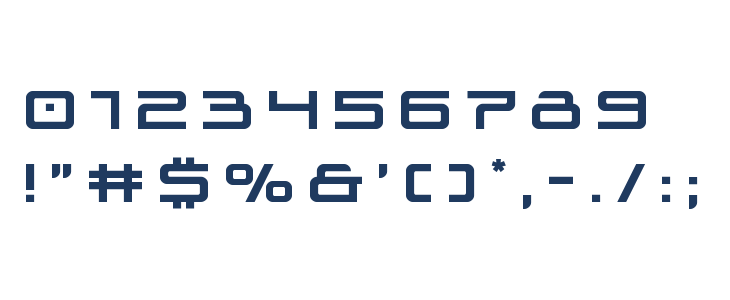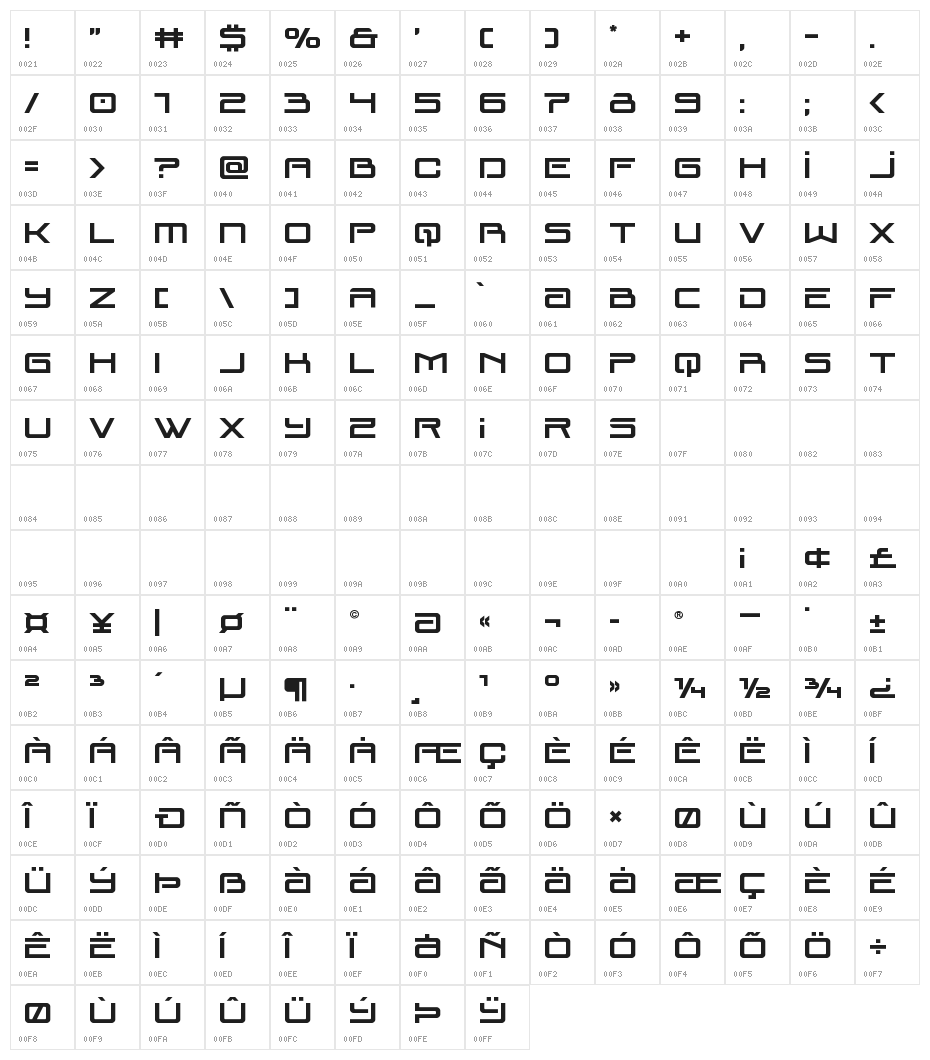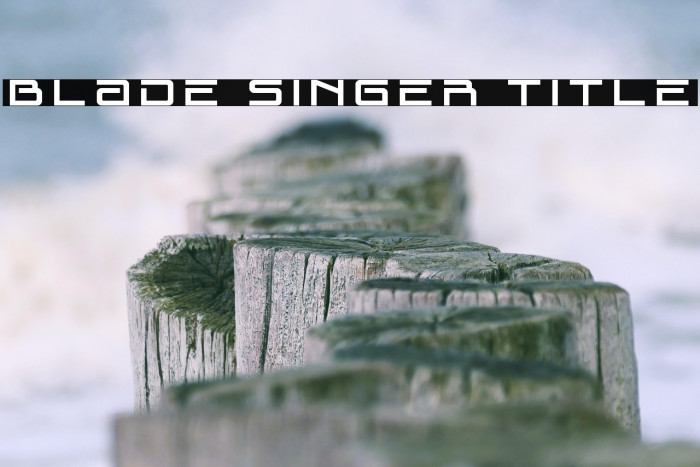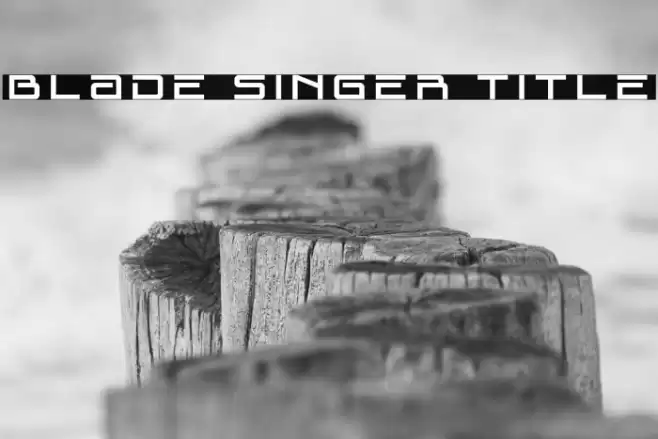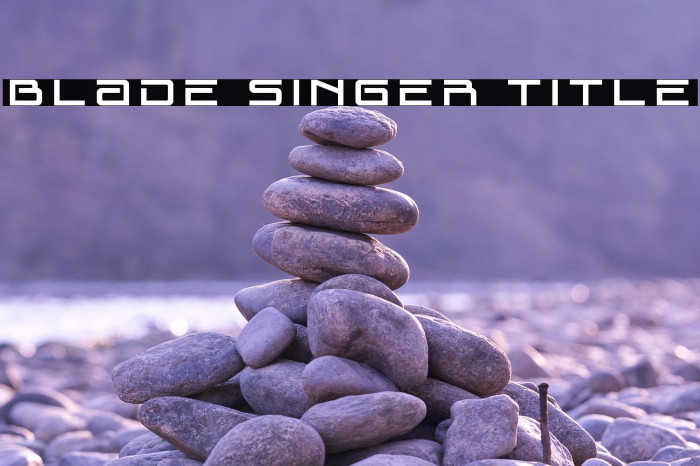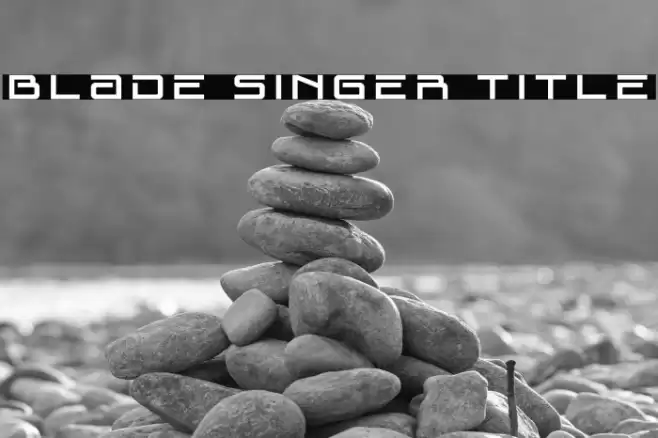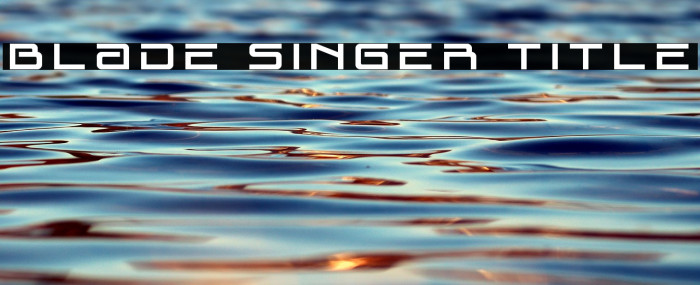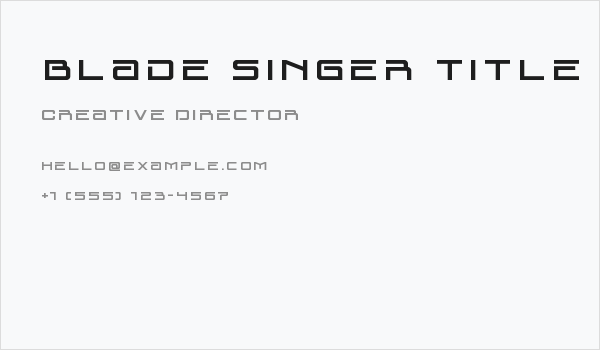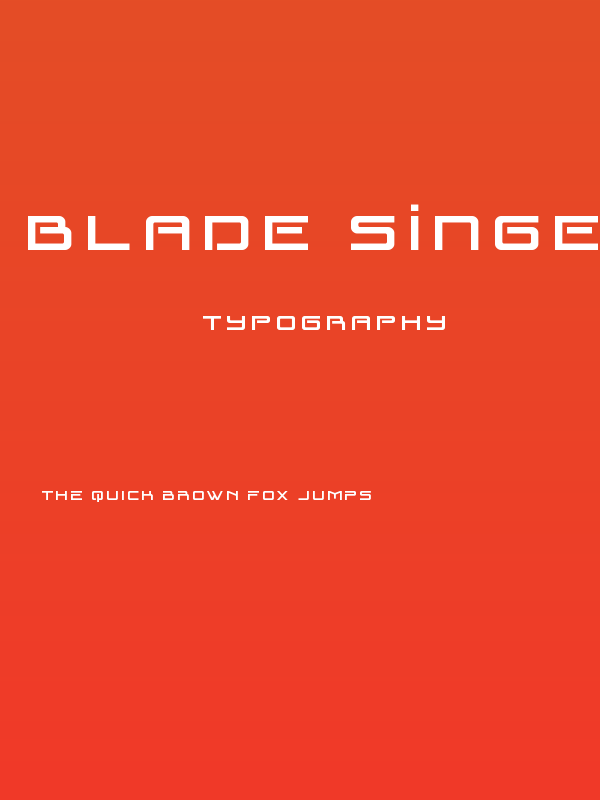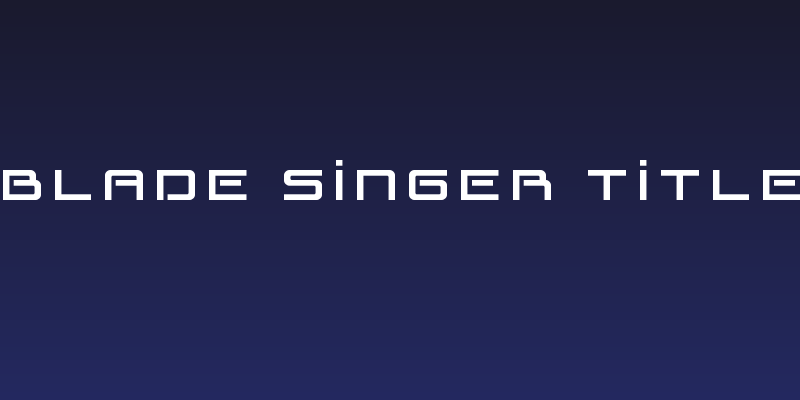
Blade Singer Title Font
Blade Singer Title Description
This font features a futuristic and geometric design, characterized by its sharp angles and clean lines. The uppercase and lowercase letters maintain a consistent height, giving it a uniform appearance. The numerals and special characters follow the same design principles, ensuring a cohesive look across all glyphs. The font's structure is bold and impactful, making it suitable for attention-grabbing headlines or titles. Its modern aesthetic is enhanced by the absence of serifs, contributing to a sleek and streamlined look. The spacing between characters is balanced, providing readability while maintaining its distinct style.
| Proposed Projects | Ideal for sci-fi themed projects, technology branding, video game titles, and modern posters. |